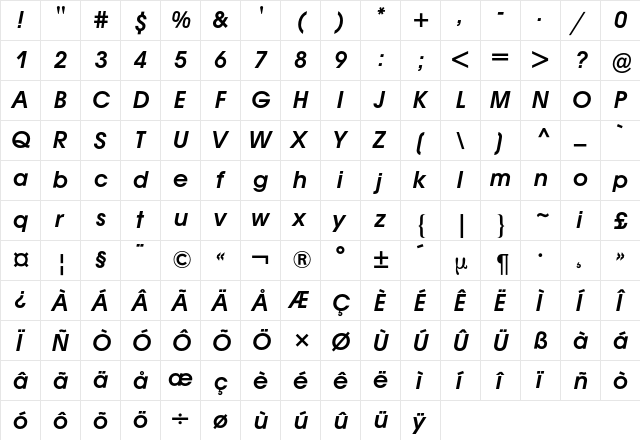
Avant Garde BQ Regular
Design Context for Avant Garde BQ Typeface
Avant Garde BQ offers clean, dependable letterforms without strong stylistic allegiance, making it a practical choice for designers who need flexibility.
Pro Tip: Use Avant Garde BQ in both headline and body roles to test its range before committing to a single application.